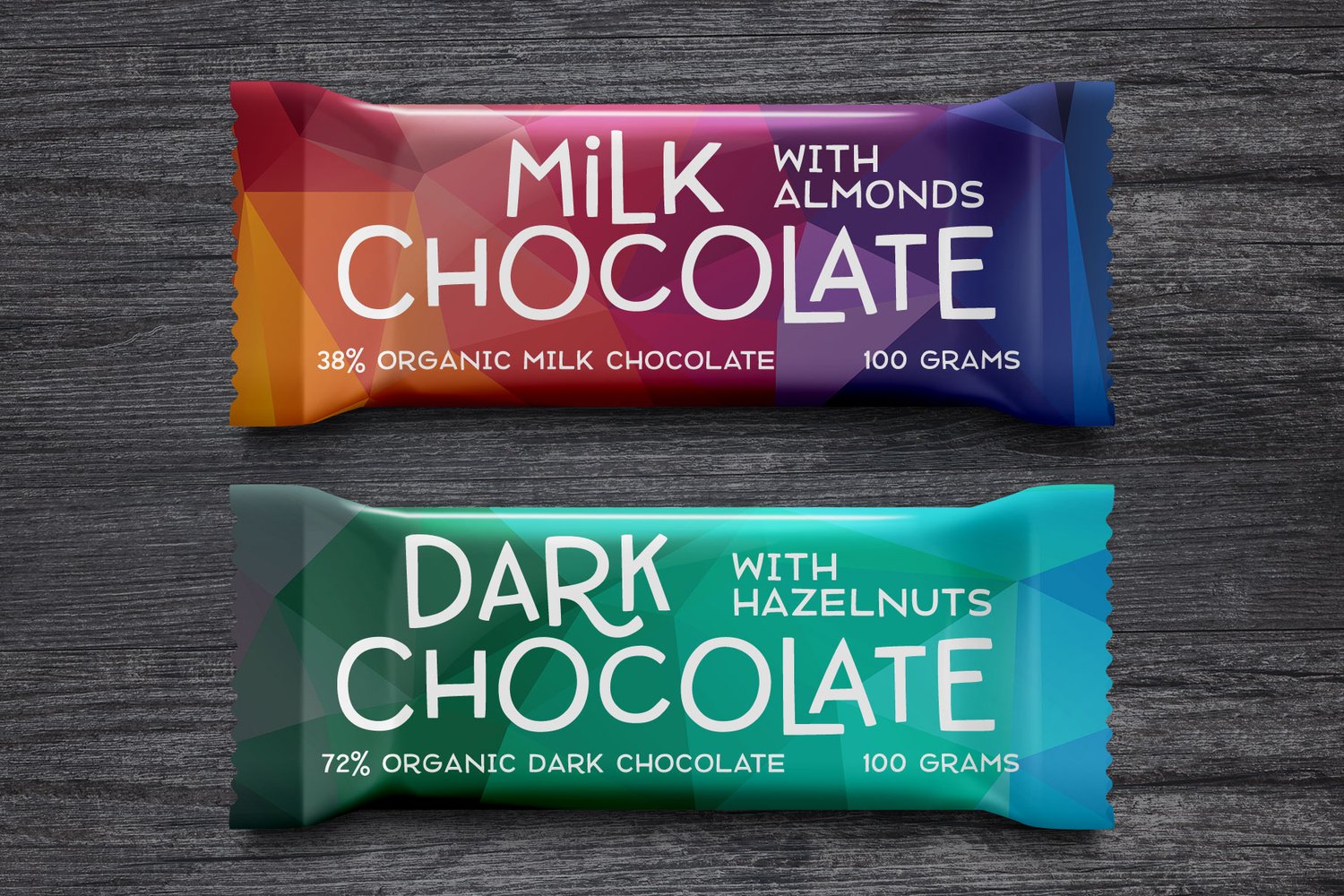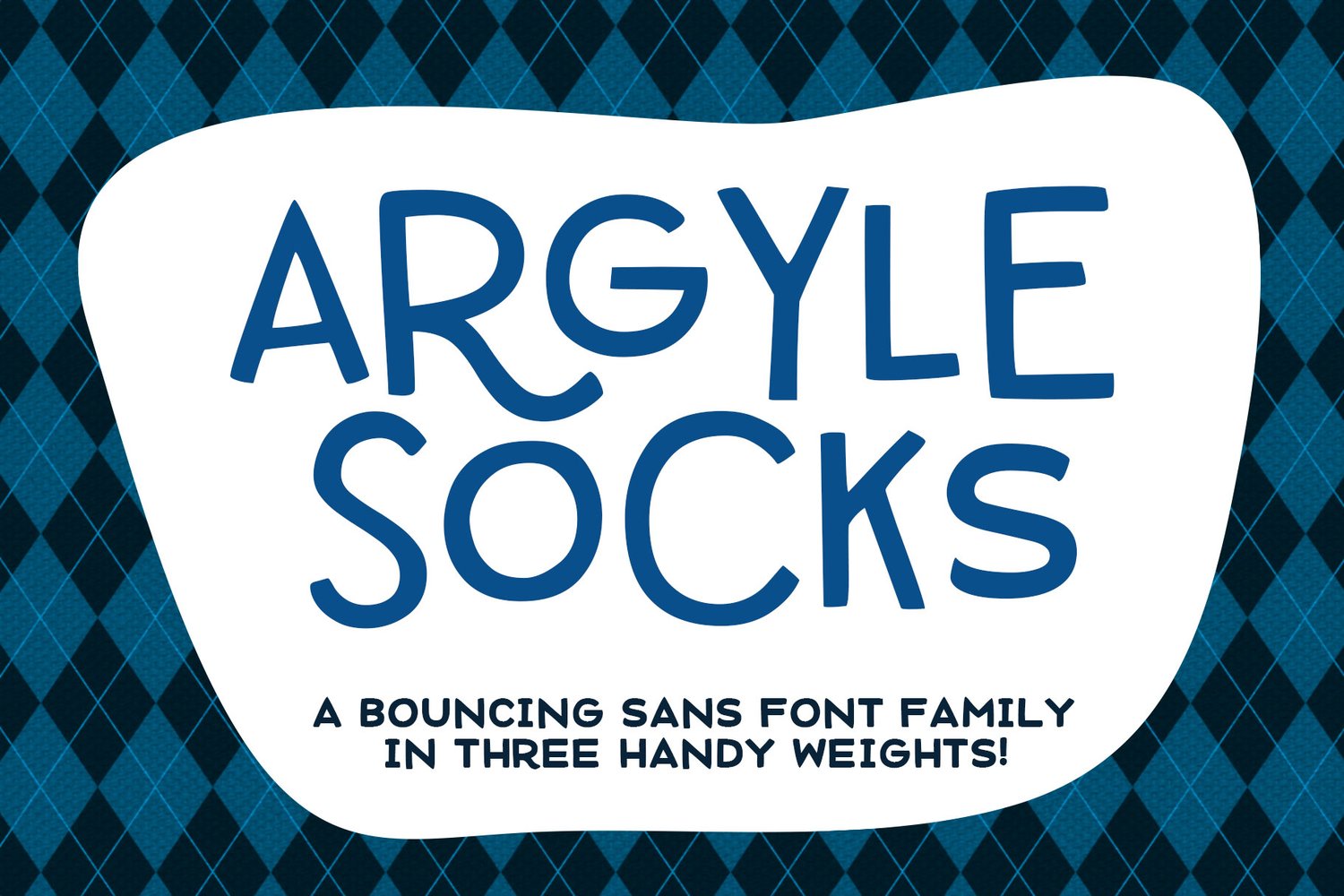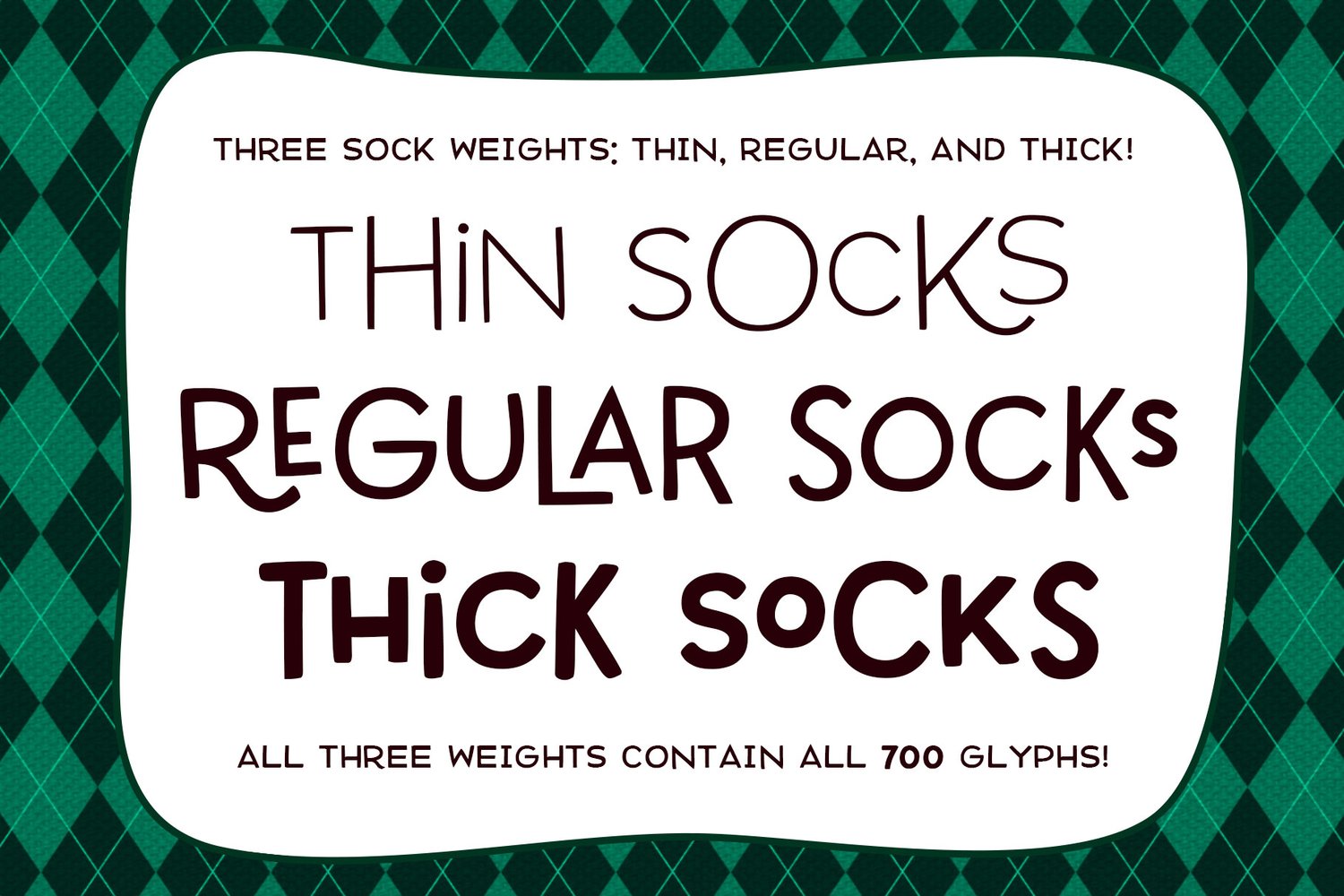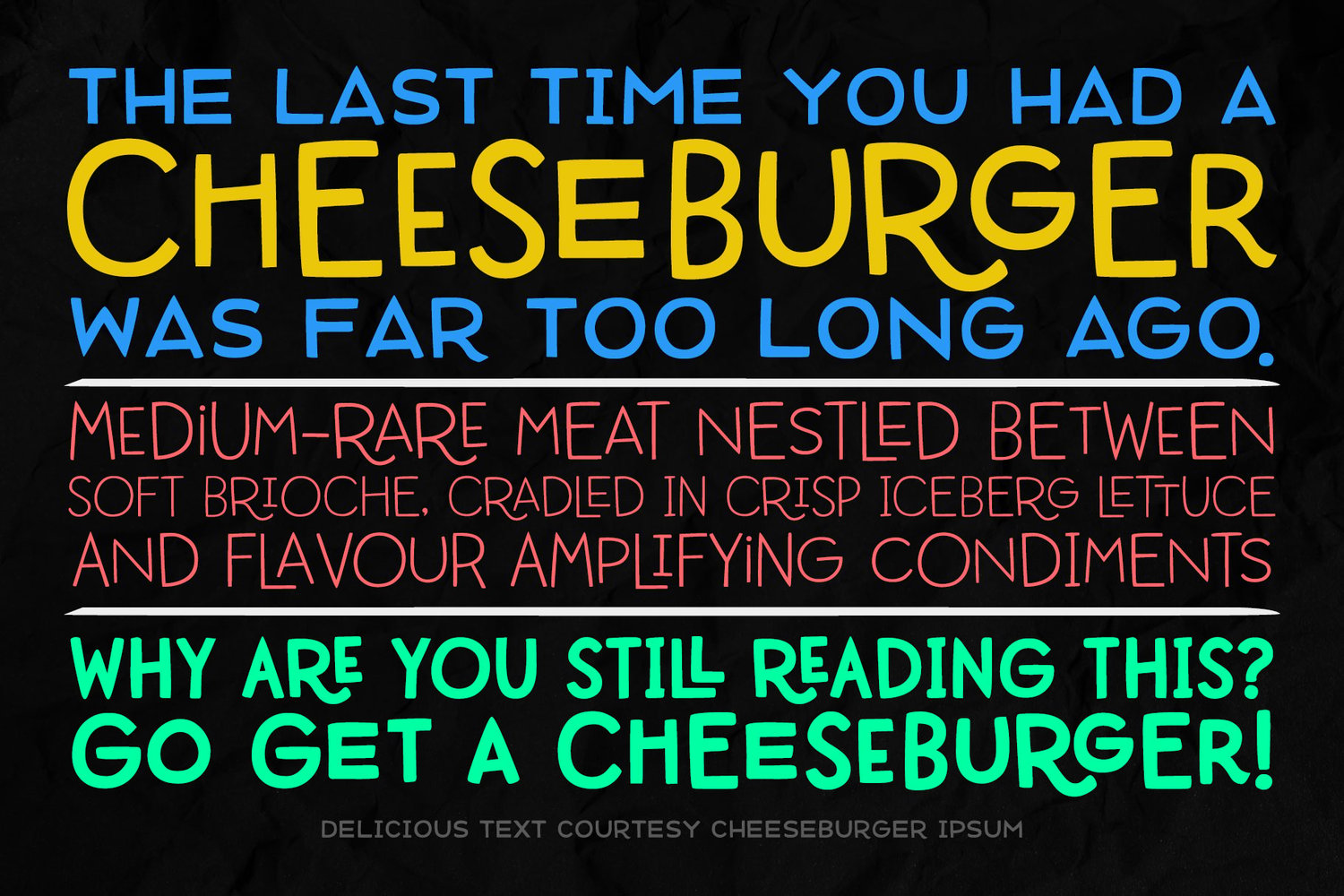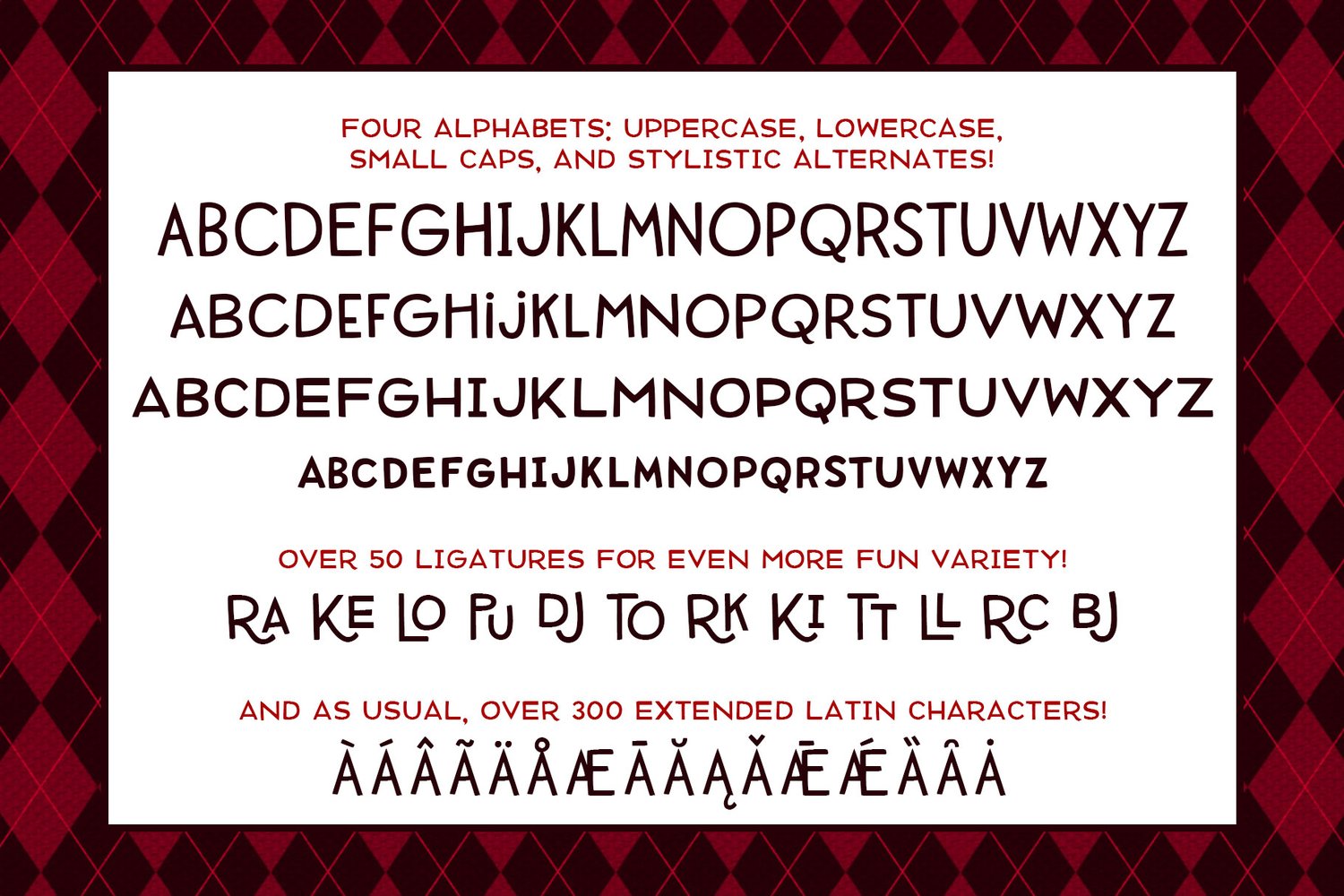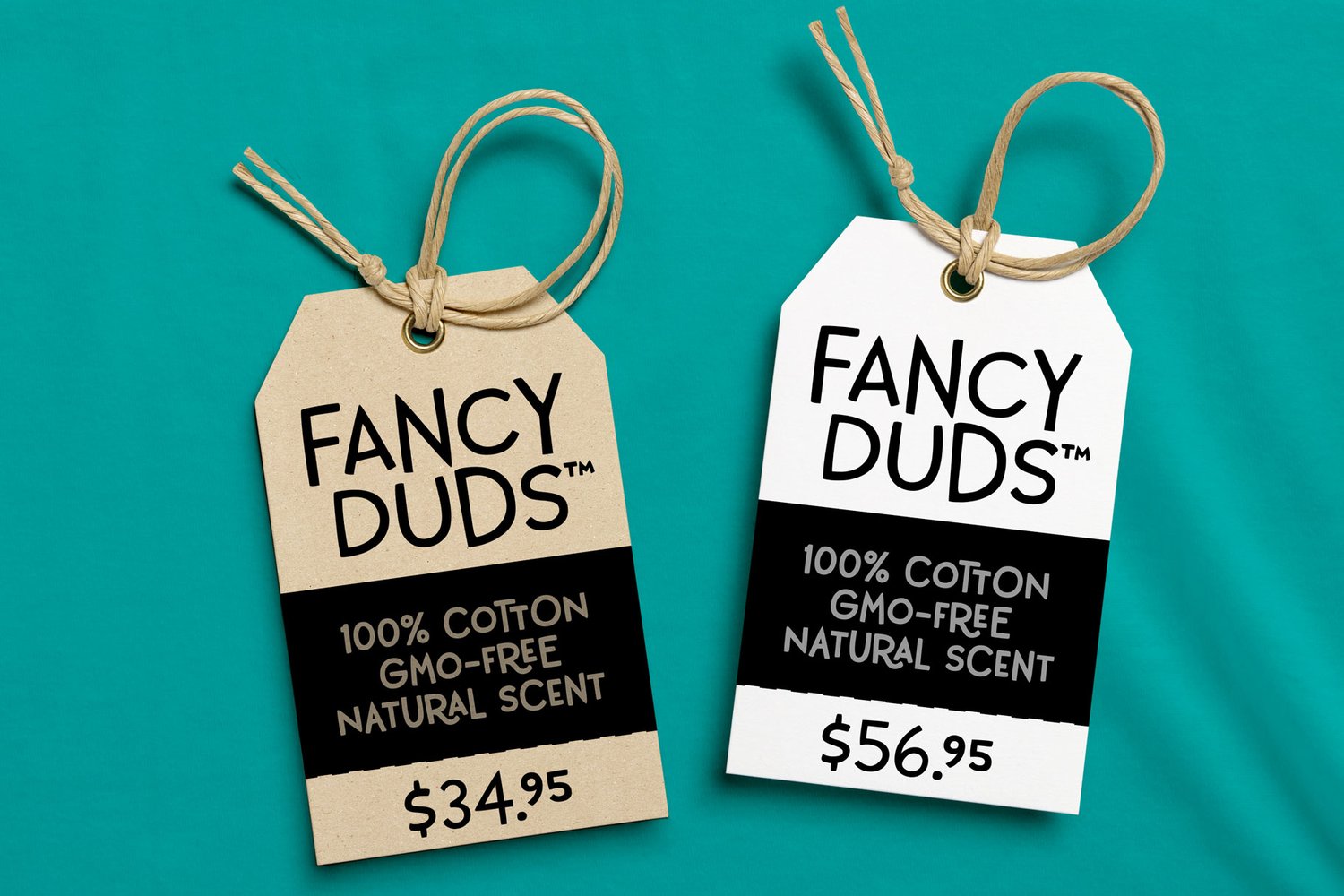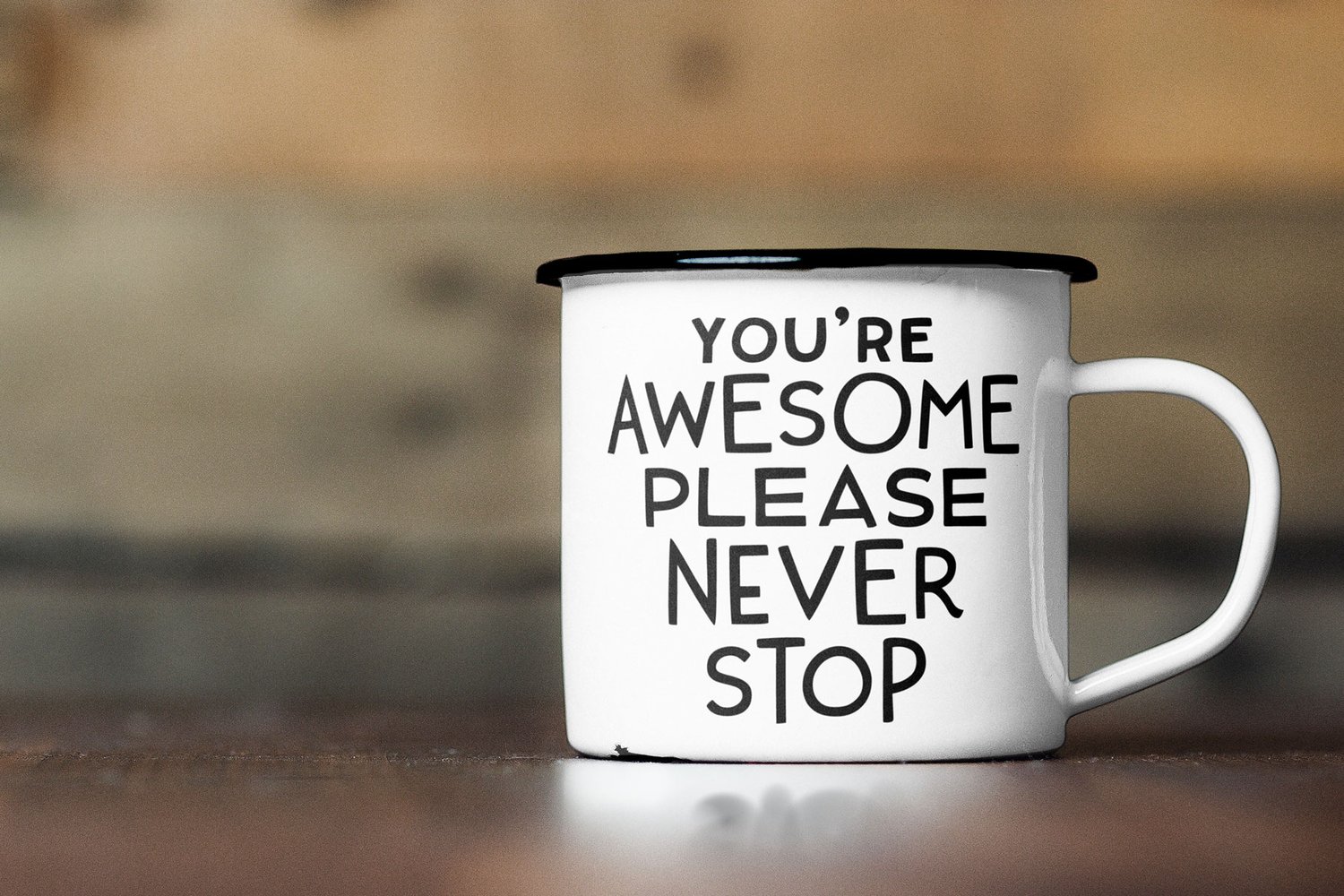
Argyle Socks
I watched a video about the movie poster designs done by Saul Bass - most of the lettering was simple, handwritten sans-serifs, with some letter combinations that cradled each other. So I decided to take inspiration from Bass, and made ARGYLE SOCKS.
It's a fairly clean sans-serif, with just a little wiggle to remind you that it was drawn by hand. There are four full alphabets included - the uppercase, lowercase, small caps, and stylistic alternates - plus dozens of two-letter ligatures to add fun and variety. You can mix and match all sizes of letters for unique logos, branding, packaging, craft projects, and more!
ARGYLE SOCKS comes in three weights: regular, thin, and thick, so you'll have the right size for every project. And all three weights have the same 700 glyphs, which includes the uppercase Greek alphabet and over 300 extended Latin characters for language support!